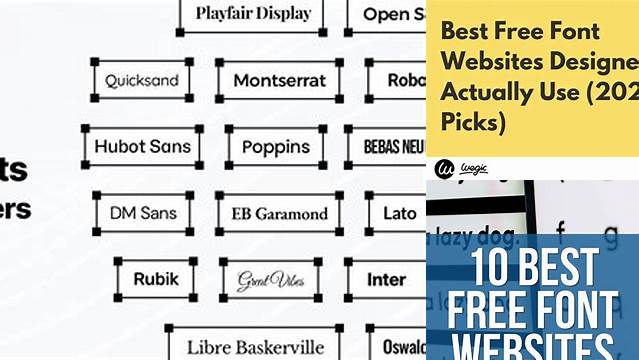
Best Free Font Websites: Reddit's Top Picks
Hey guys! Finding the perfect font can be a real game-changer for your design projects, right? Whether you're working on a website, a presentation, or a cool poster, the right font can make all the difference. That's why we've scoured Reddit – that treasure trove of internet wisdom – to bring you the best free font websites out there. Let's dive in and explore some awesome resources to level up your typography game!
1. Understanding the Importance of Font Choice
Choosing the right font is crucial for conveying the intended message and creating a visually appealing design. The font you select can significantly impact how your audience perceives your content. For example, a playful script font might be perfect for a children's book, but it would be completely out of place on a corporate website. Similarly, a bold, sans-serif font might be ideal for headlines, while a classic serif font can enhance readability in body text. So, guys, understanding the nuances of font choice is the first step in making your designs truly shine. Think about the overall tone and feel you want to achieve and let that guide your font selection.
2. Google Fonts: A Massive Library of Free Fonts
Google Fonts is undoubtedly one of the most popular and widely used resources for free fonts. It boasts an extensive library of high-quality fonts, all of which are open-source and free to use for both personal and commercial projects. The best part? Google Fonts makes it super easy to embed fonts directly into your website or download them for use in your design software. You can filter fonts by category, style, and language, making it a breeze to find the perfect match for your needs. Trust me, guys, if you're just starting your font-finding journey, Google Fonts is the place to be.
3. Font Squirrel: Free Fonts with Commercial Licenses
Font Squirrel is another fantastic resource for free fonts, especially if you're looking for fonts with commercial licenses. This means you can use these fonts in projects that you intend to sell or profit from without worrying about copyright issues. Font Squirrel carefully curates its collection, ensuring that all fonts are of high quality and legally available for commercial use. Plus, they offer a handy Font Identifier tool that helps you identify fonts from images – super useful, right? So, for all you designers out there needing fonts for your professional gigs, Font Squirrel is your go-to.
4. DaFont: A Huge Collection of User-Submitted Fonts
DaFont is a massive archive of user-submitted fonts, offering a dizzying array of styles and designs. While the quality can vary, you're sure to find some real gems in their extensive collection. DaFont categorizes fonts by theme (e.g., horror, cartoon, futuristic), making it easier to browse for specific styles. Just be sure to check the license for each font, as some are free for personal use only. DaFont is perfect for those times when you need something a little bit quirky or unique, guys. You might just stumble upon your next favorite font!
5. Adobe Fonts: Integrated Font Library for Adobe Creative Cloud Users
If you're an Adobe Creative Cloud subscriber, you're in luck! Adobe Fonts (formerly Typekit) offers a vast library of high-quality fonts that are seamlessly integrated into your Adobe applications. You can easily browse, activate, and use these fonts in Photoshop, Illustrator, InDesign, and more. The best part? All fonts are included in your Creative Cloud subscription, so there are no extra costs to worry about. Adobe Fonts provides a professional and streamlined experience, making it a top choice for designers who rely on Adobe software.
6. The League of Movable Type: Open-Source Typography Foundry
The League of Movable Type is a collaborative, open-source type foundry that offers a selection of beautifully crafted, free fonts. They focus on quality over quantity, so you'll find a curated collection of elegant and timeless typefaces. If you appreciate classic typography and want fonts that exude sophistication, this is definitely a site to check out. Their fonts are perfect for projects that demand a touch of class and refinement.
7. Behance: Discovering Fonts from Creative Professionals
Behance, Adobe's online platform for showcasing creative work, is also a fantastic place to discover free fonts. Many designers share their fonts as freebies or resources for the community. You can browse through various projects and often find links to download fonts directly from the creators. This is a great way to support independent designers and find unique, handcrafted fonts that you won't find anywhere else. Plus, you get to see how these fonts are used in real-world design projects, providing inspiration for your own work!
8. Fontspace: A Large Archive of Free Fonts
Fontspace is another expansive archive of free fonts, offering a wide variety of styles and designs. They have a user-friendly interface that makes it easy to browse and filter fonts by category, popularity, and more. Like DaFont, it's important to check the license for each font before using it, as some are free for personal use only. Fontspace is a solid choice if you're looking for a large selection and don't mind sifting through some user-submitted options.
9. MyFonts: A Marketplace for Premium and Free Fonts
MyFonts is primarily a marketplace for premium fonts, but they also have a selection of free fonts available. While the free options may be more limited compared to dedicated free font sites, you can often find high-quality fonts that are worth checking out. Plus, browsing MyFonts gives you a glimpse into the world of professional typography, which can be inspiring in itself.